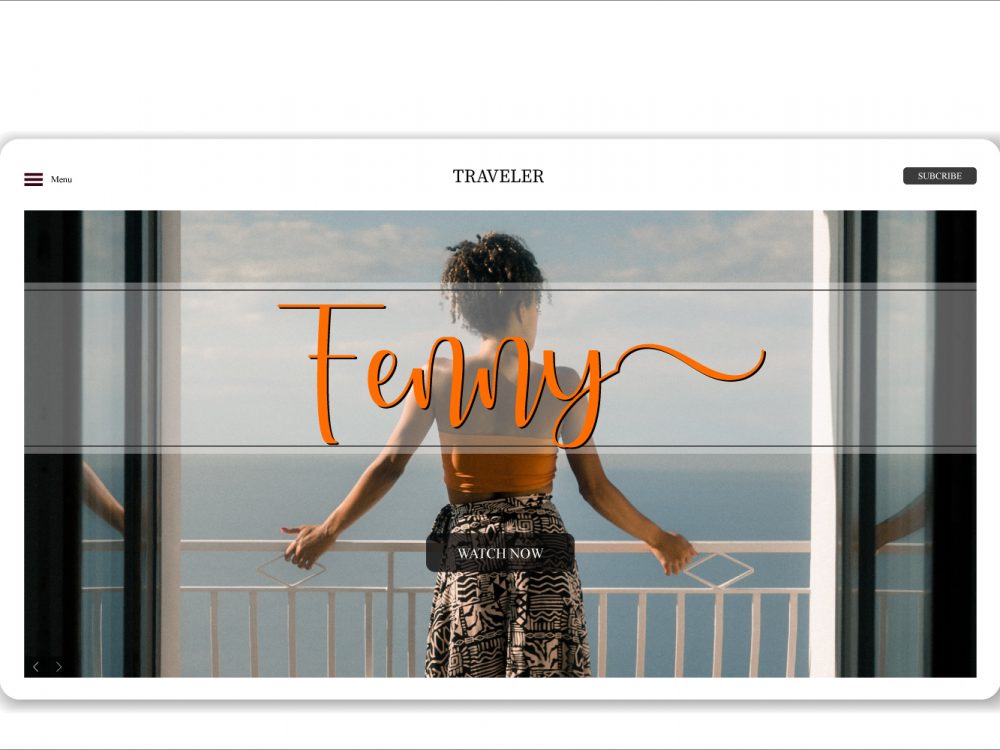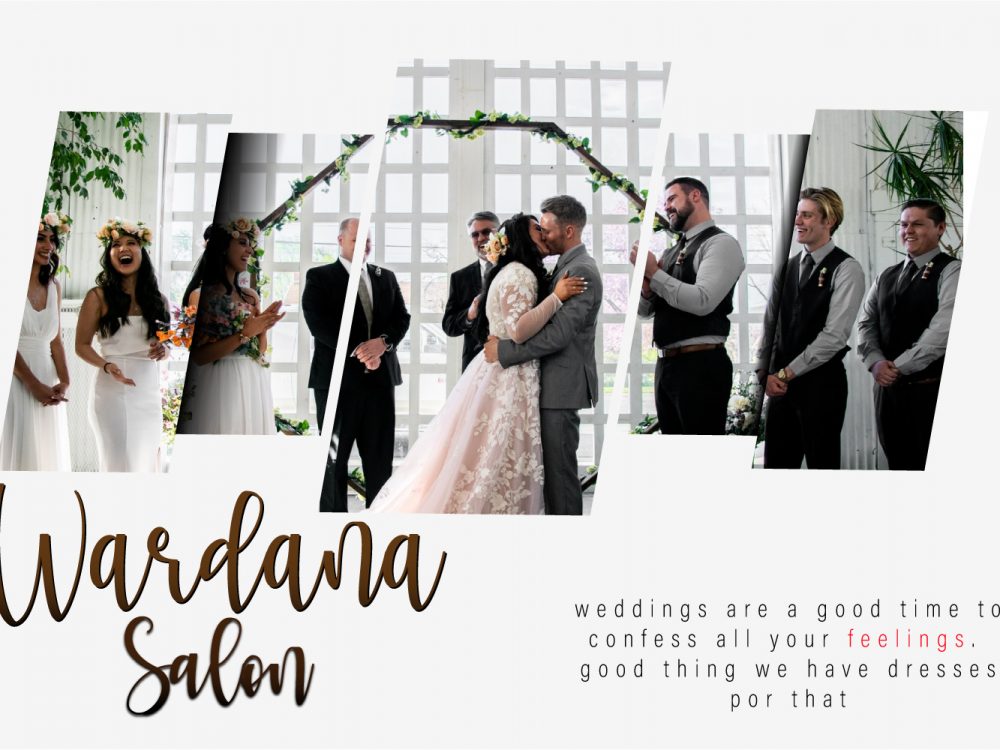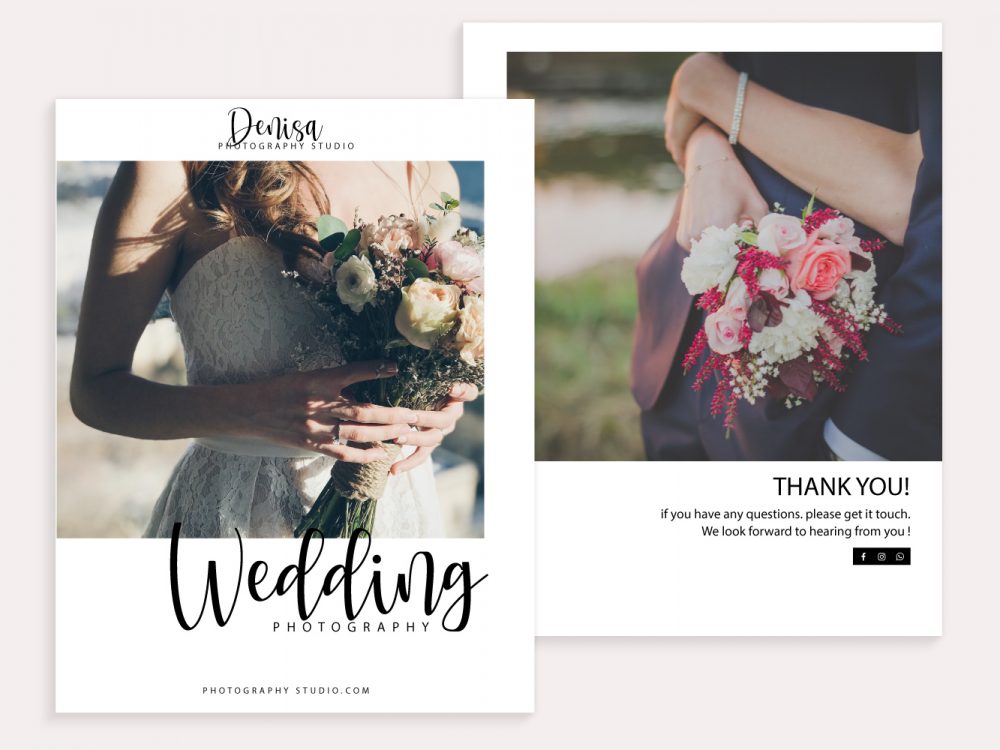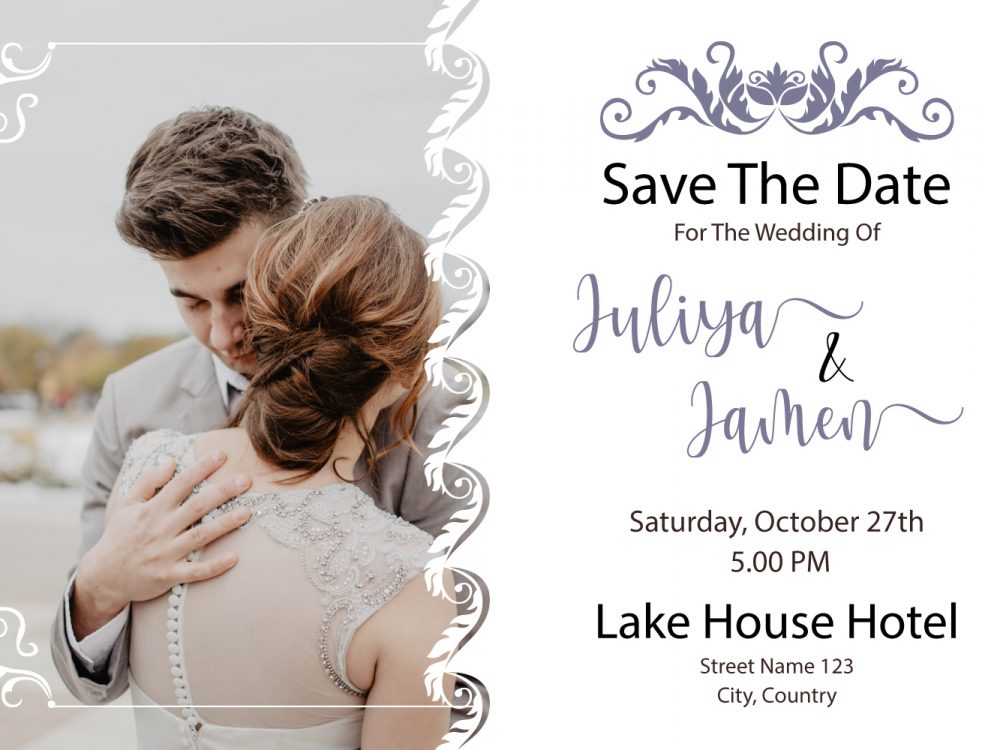
Fernynda Free Font
Fernynda Free Font is an interesting elegant handwritten font that features a modern calligraphic style among other fonts. This font is very well suited for various projects that require a scripted modern curly handwritten font. Use this font to create memorable romantic posters, wedding invitations, greeting cards, branding, flyers, t-shirt and pillow prints, and more. Improve your professional level using this font. If you like it don’t forget to check out the full version.